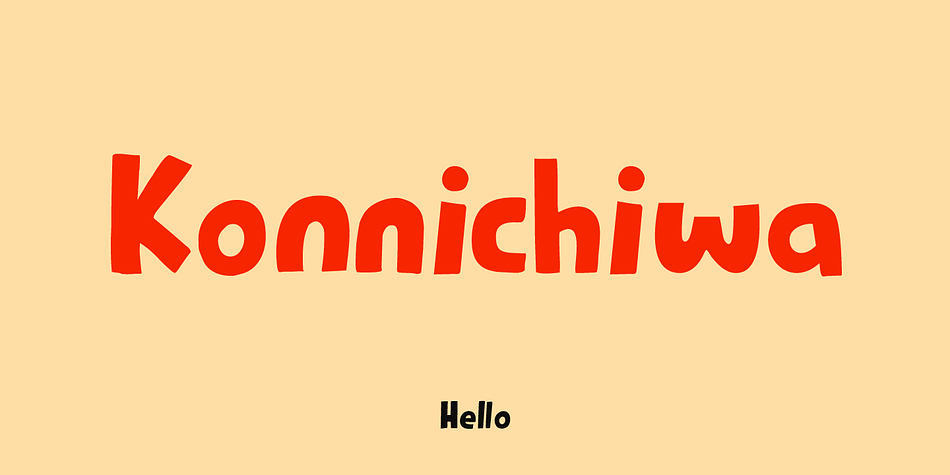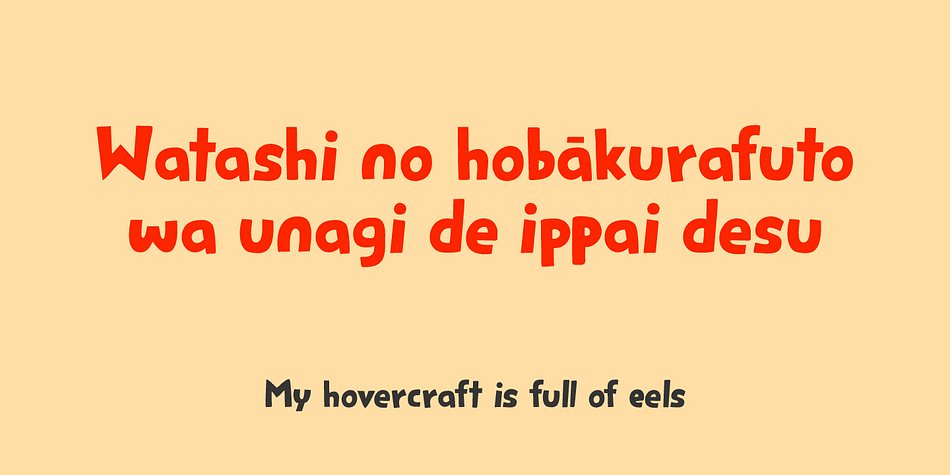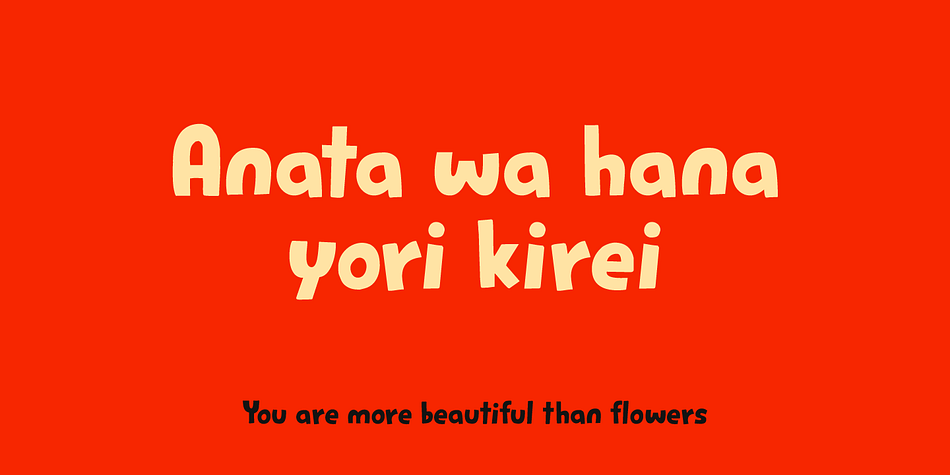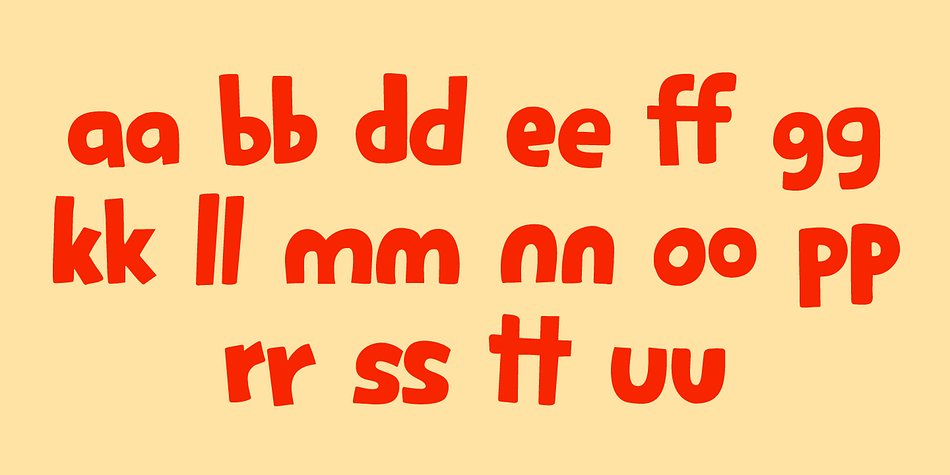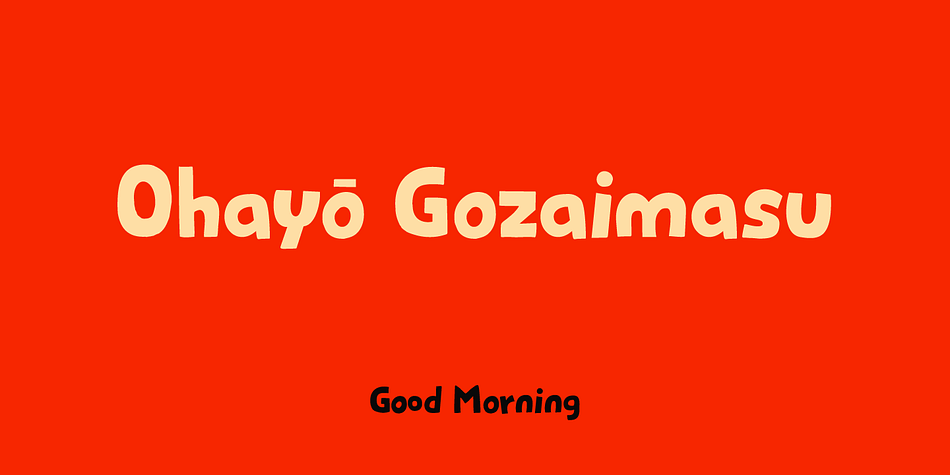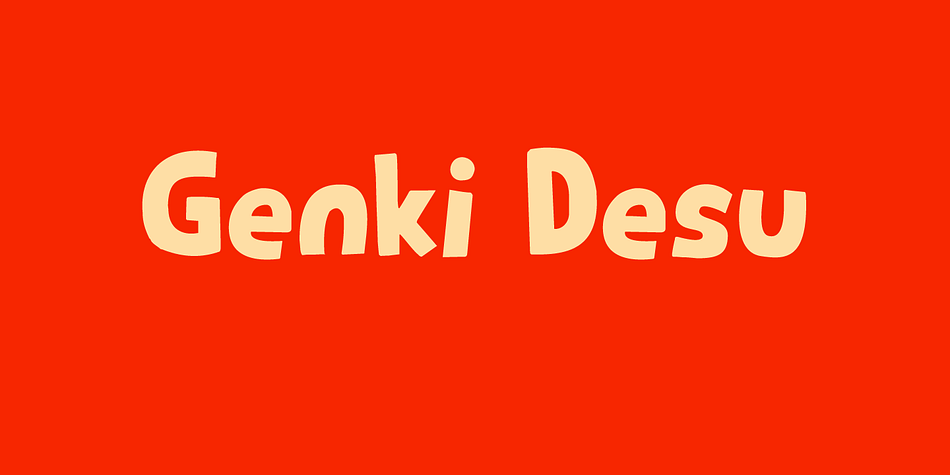
Designed by David Kerkhoff, Genki Desu is a hand display and kids font family. This typeface has two styles and was published by Hanoded.
Genki Desu is one of those Japanese expressions that are used a lot and don’t really mean what you think they mean. You can use it as a greeting: O Genki Desu Ka? (お元気ですか - how are you), or to say you’re feeling fine (元気です - Genki Desu). The word Genki also means ‘energy’ or ‘vigor’. I am not an expert, in fact, there’s so much Japanese I can actually speak (shame on me), but Genki Desu is one of my favourites. Maybe just because it sounds so nice!
Genki Desu is a cartoon/kid’s font. It is happy, kawaii and full of Genki, so use it for any design that needs a bit of cute.
In the word of the great Yoda: ‘May the Genki be with you!’.